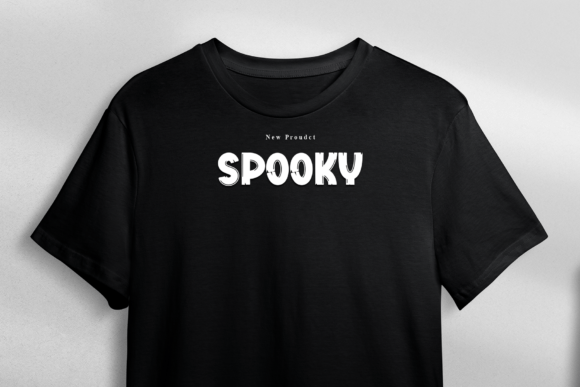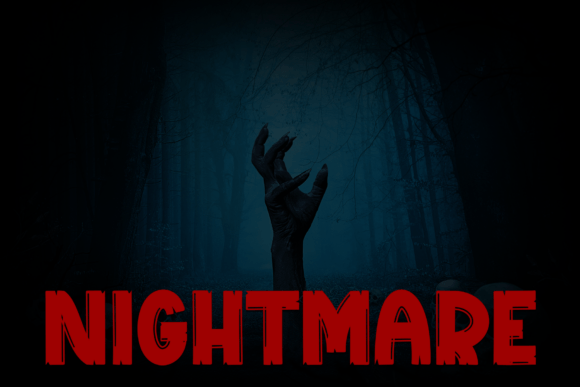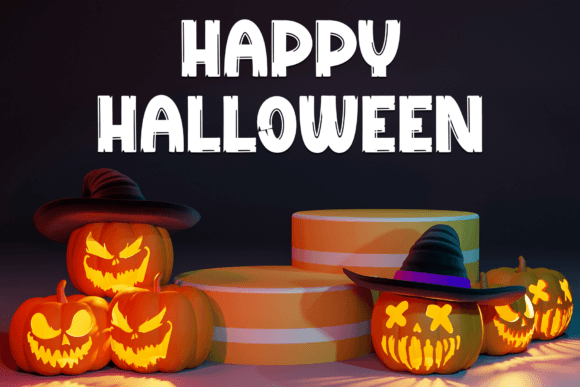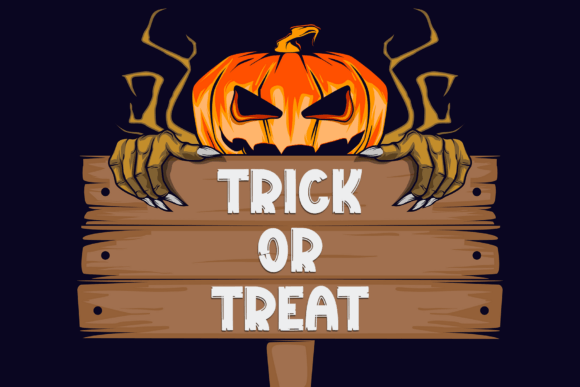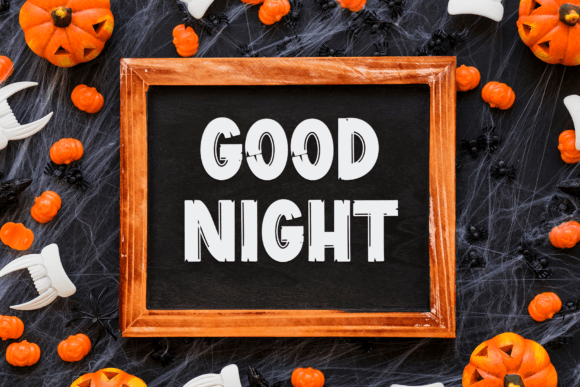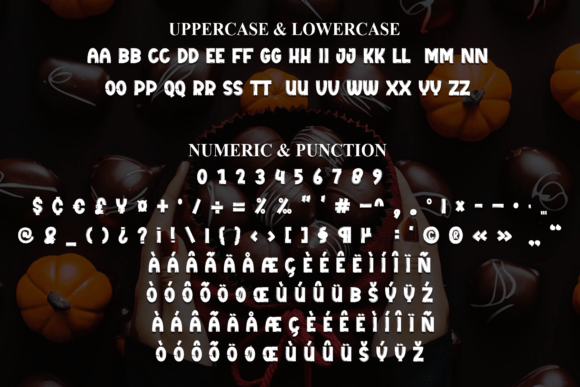
Introducing the Chocolate Halloween Font: A Spooky and Deliciously Bold Display Font
As the spookiest time of the year approaches, designers and crafters are on the lookout for the perfect font to add a touch of eerie elegance to their Halloween decorations and treats. Look no further than the Chocolate Halloween Font, a bold and playful display font that is sure to cast a spell on your audience. With its thick, rich chocolate-inspired letters, this font is the perfect addition to any Halloween-themed project.
A Font that’s as Sweet as it is Spooky
The Chocolate Halloween Font is designed to evoke the feeling of rich, velvety chocolate, with thick letters that look like they’re made of the finest cocoa. The font’s bold and playful design makes it perfect for use on Halloween decorations, treats, and other spooky-themed projects. Whether you’re designing invitations, candy wrappers, or other Halloween-themed goodies, this font is sure to add a touch of whimsy and fun.
The Chocolate Halloween Font is a versatile font that can be used by both designers and crafters to add a touch of spooky elegance to their projects. Designers can use this font to create eye-catching Halloween-themed graphics, while crafters can use it to add a personal touch to their DIY Halloween decorations and treats. With its easy-to-use design, this font is perfect for anyone looking to add a little bit of Halloween magic to their projects.
Key Features of the Chocolate Halloween Font
- Bold and Playful Design: The Chocolate Halloween Font features a bold and playful design that’s perfect for adding a touch of spooky elegance to your Halloween-themed projects.
- Thick, Chocolate-Inspired Letters: The font’s thick letters look like they’re made of rich chocolate, making it perfect for use on Halloween decorations and treats.
- Perfect for Halloween-Themed Projects: This font is perfect for use on Halloween-themed projects, including invitations, candy wrappers, and other spooky-themed goodies.
Using the Chocolate Halloween Font in Your Projects
The Chocolate Halloween Font can be used in a variety of ways to add a touch of spooky elegance to your Halloween-themed projects. Here are a few ideas to get you started:
- Halloween Invitations: Use the Chocolate Halloween Font to create eye-catching Halloween invitations that are sure to impress your friends and family.
- Candy Wrappers: Add a personal touch to your Halloween candy wrappers with the Chocolate Halloween Font.
- Halloween Decorations: Use the Chocolate Halloween Font to create spooky and fun Halloween decorations, such as banners, signs, and other DIY projects.
Tips and Tricks for Using the Chocolate Halloween Font
Here are a few tips and tricks to keep in mind when using the Chocolate Halloween Font in your projects:
- Experiment with Different Colors: The Chocolate Halloween Font looks great in a variety of colors, so don’t be afraid to experiment and find the perfect color scheme for your project.
- Use it with Other Halloween-Themed Fonts: The Chocolate Halloween Font pairs well with other Halloween-themed fonts, so consider using it in combination with other fonts to create a unique and eye-catching design.
- Add a Personal Touch: Use the Chocolate Halloween Font to add a personal touch to your Halloween-themed projects, such as by adding your name or a special message.
The Chocolate Halloween Font is a bold and playful display font that’s perfect for adding a touch of spooky elegance to your Halloween-themed projects. With its thick, rich chocolate-inspired letters, this font is sure to cast a spell on your audience. Whether you’re a designer or crafter, this font is a must-have for anyone looking to create eye-catching and fun Halloween-themed projects.